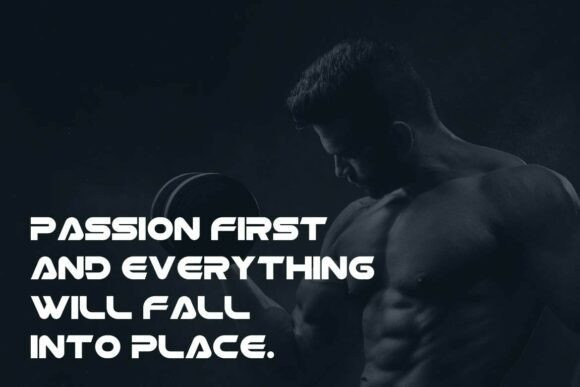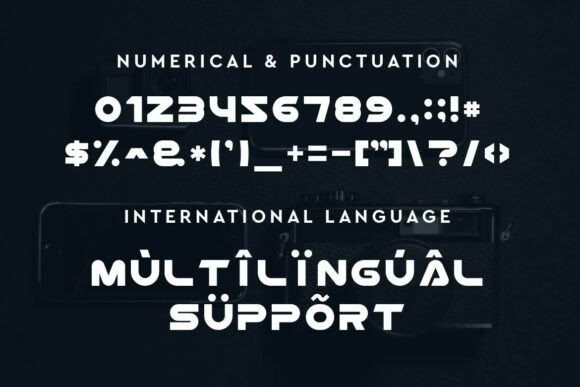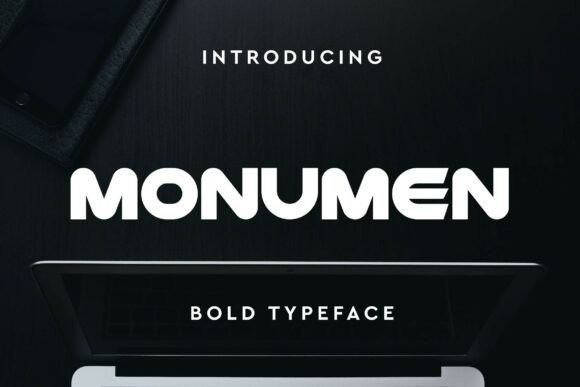
Monumen Font
Monumen Font is a bold and commanding sans serif display font crafted to make a lasting impact. With thick strokes, sharp angles, and a structured form, Monumen exudes strength, authority, and confidence — ideal for logos, posters, sports branding, headlines, apparel, and product packaging that demand attention.